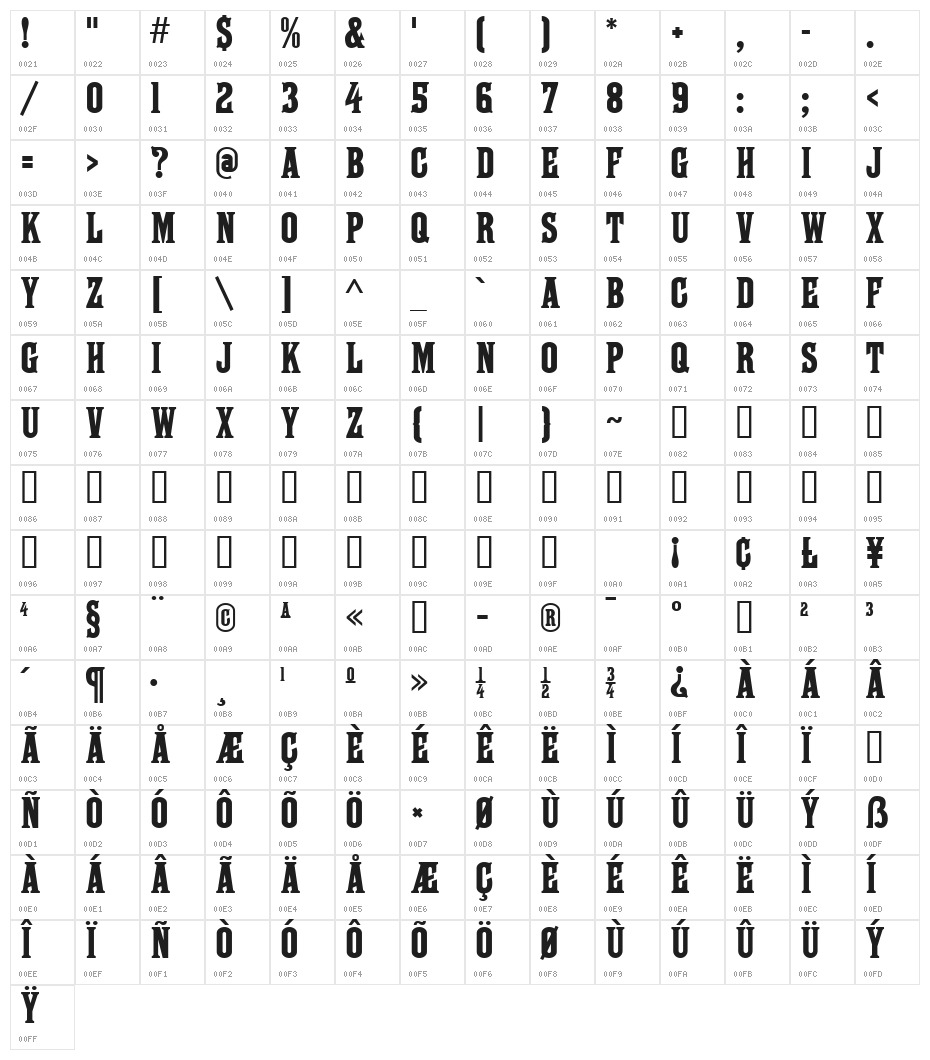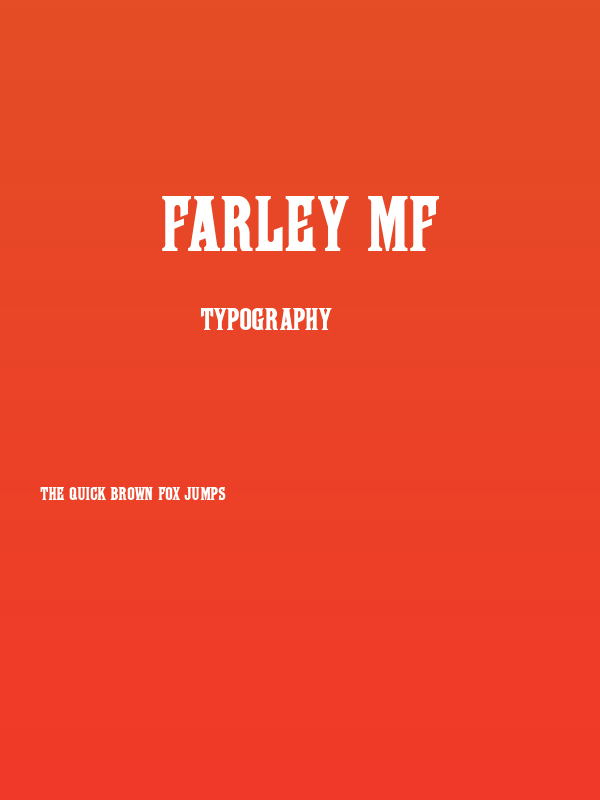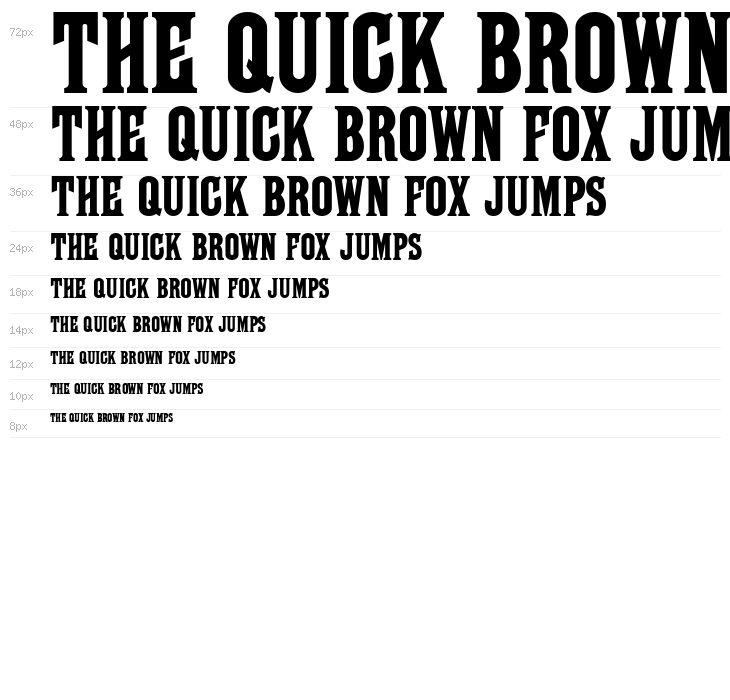
Farley MF Font
Farley MF Description
This font features bold, impactful characters with a strong presence, making it ideal for attention-grabbing designs. The uppercase letters are robust and commanding, while the lowercase letters maintain a consistent weight, ensuring readability. The numerals are equally bold, matching the overall aesthetic of the font. Special characters are designed with the same boldness, providing a cohesive look across all text elements. The font's thick strokes and minimal contrast give it a powerful and assertive appearance, suitable for making statements in design.
| Proposed Projects | Ideal for posters, headlines, branding, and any project requiring a strong visual impact. |